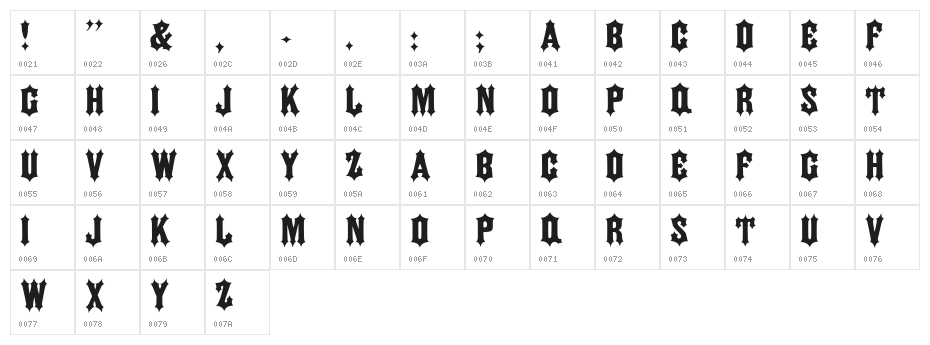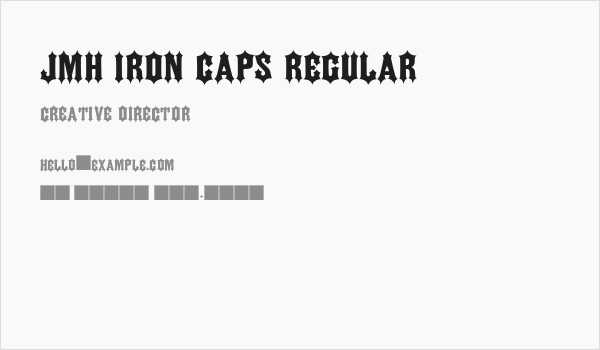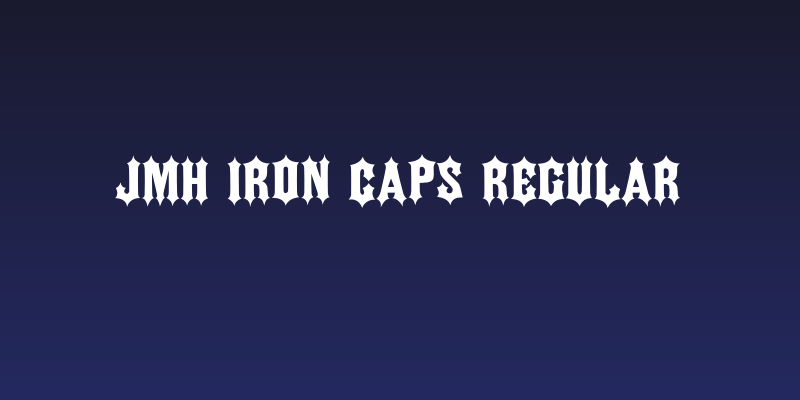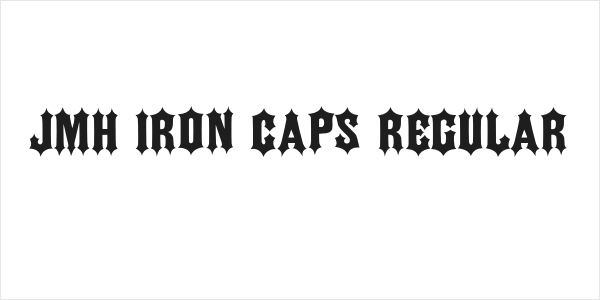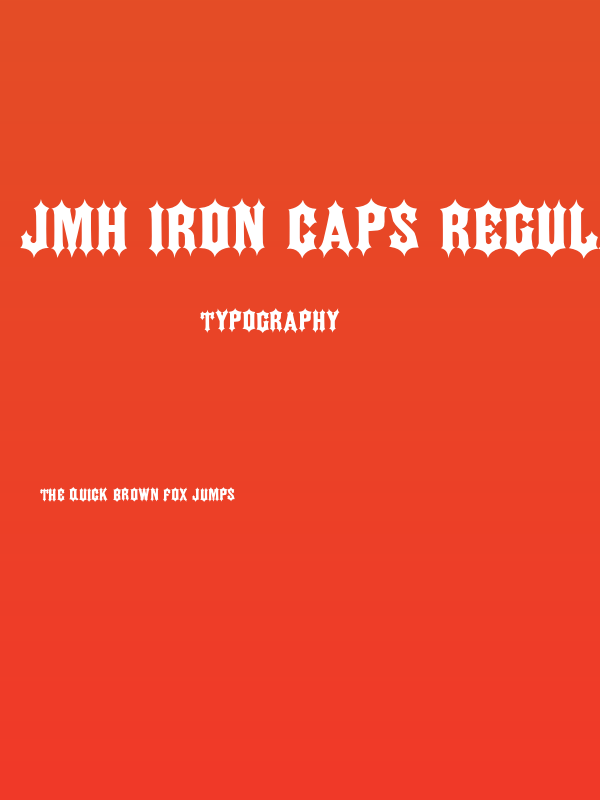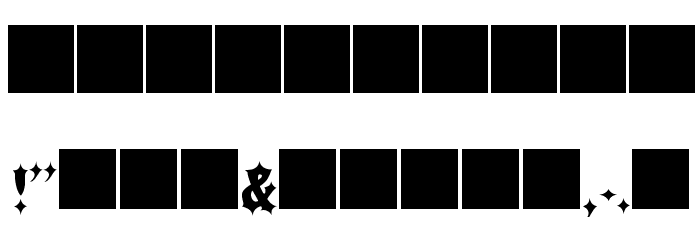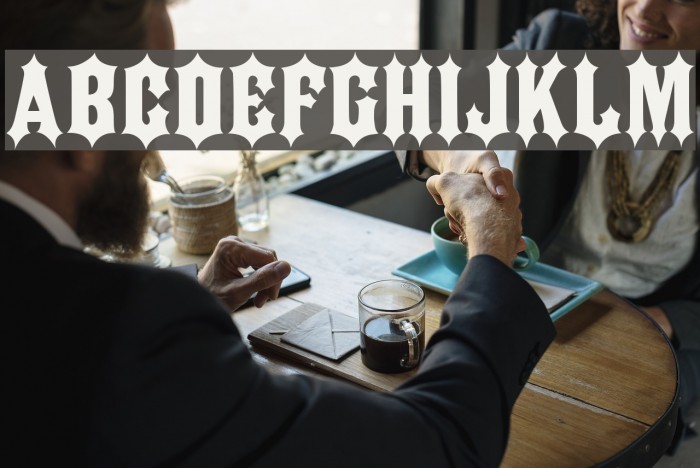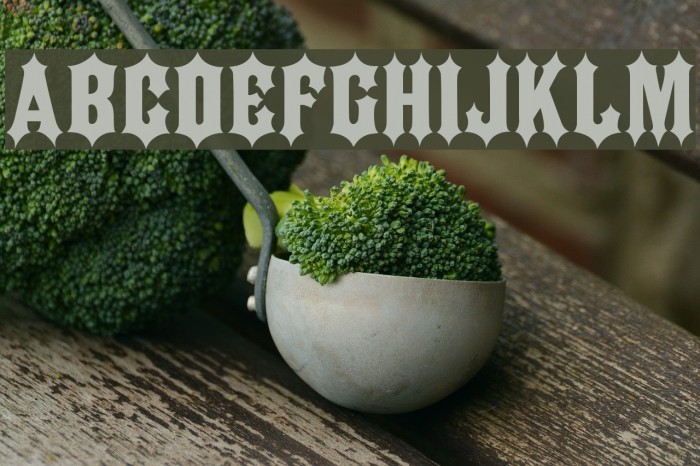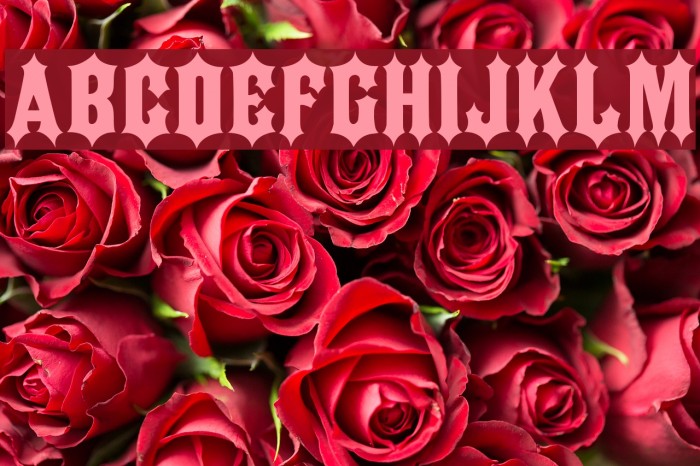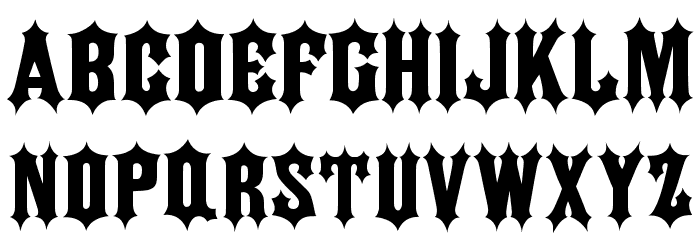
JMH IRON CAPS Regular Font
JMH IRON CAPS Regular Description
This font features a bold and striking design with sharp, angular edges and a strong presence. The characters are heavily stylized, with a gothic influence that gives them a medieval and dramatic appearance. The uppercase letters are particularly prominent, with thick strokes and pointed serifs that create a sense of power and authority. The lowercase letters maintain the same boldness, ensuring consistency across the typeface. The numbers and special characters are equally robust, fitting seamlessly with the overall aesthetic. This font is ideal for making a statement and capturing attention.
| Overall Style | Gothic, Dramatic |